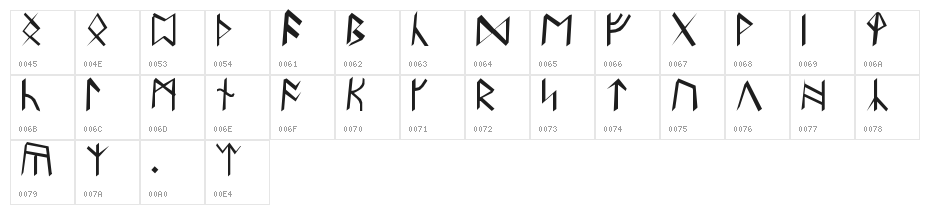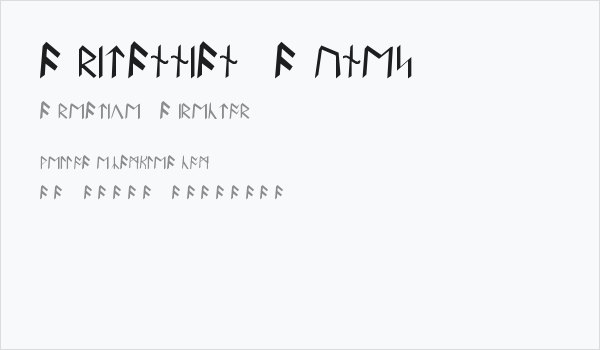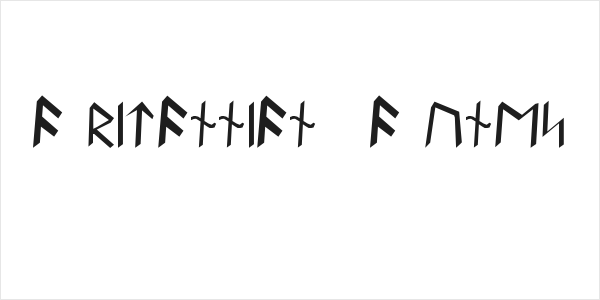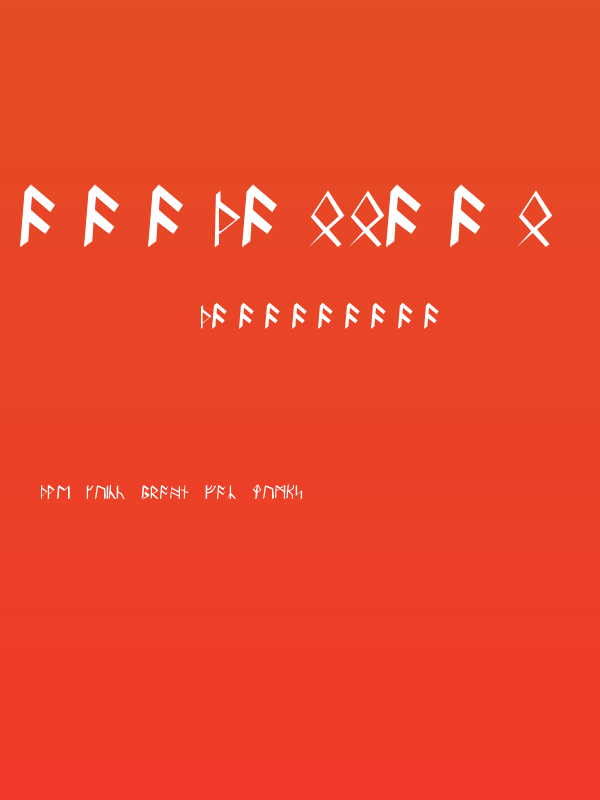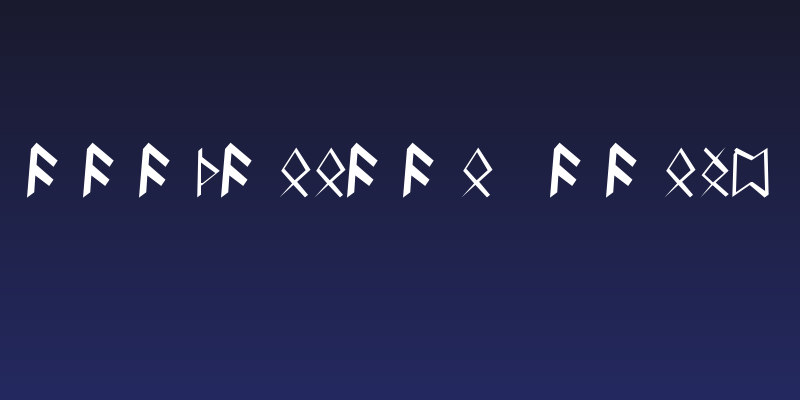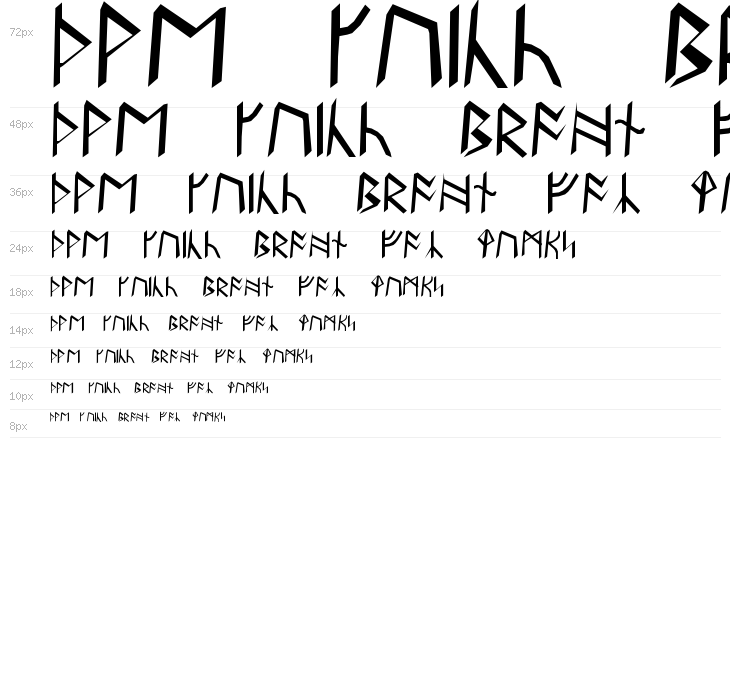
Britannian Runes Font
Britannian Runes Description
This font features a unique and ancient runic style, reminiscent of historical scripts used in early European cultures. The characters are angular and geometric, with sharp edges and distinct lines that create a sense of mystery and antiquity. Each letter is crafted with precision, embodying a sense of ancient wisdom and tradition. The font's design is both bold and striking, making it ideal for projects that require a touch of historical or mythical elements. Its distinct appearance can evoke a sense of the past, making it suitable for themed designs or artistic projects.
| Use Case | Logos, Headlines, Themed designs |
| Proposed Projects | Ideal for fantasy-themed designs, historical reenactment materials, video game graphics, or any project requiring an ancient or mystical aesthetic. |